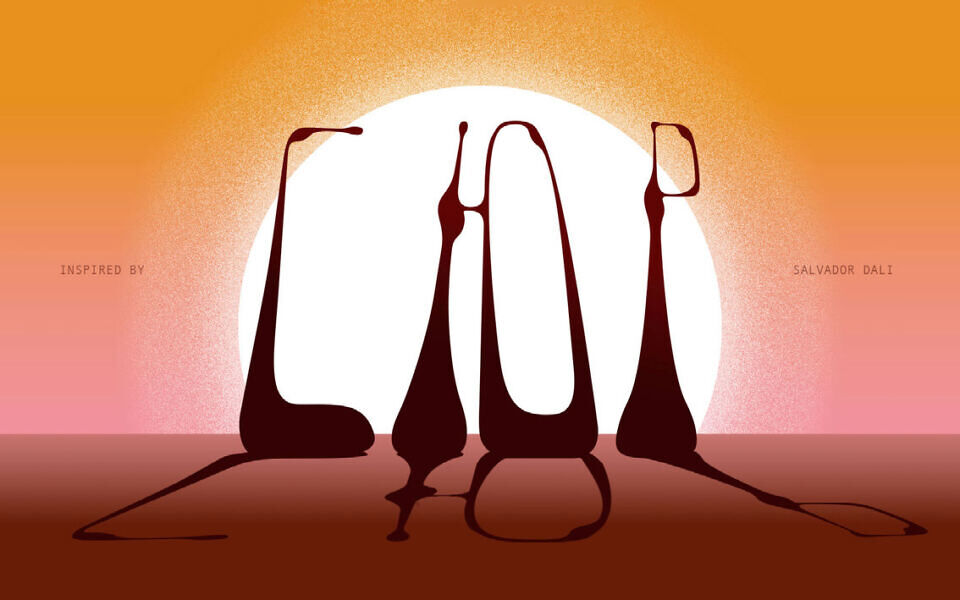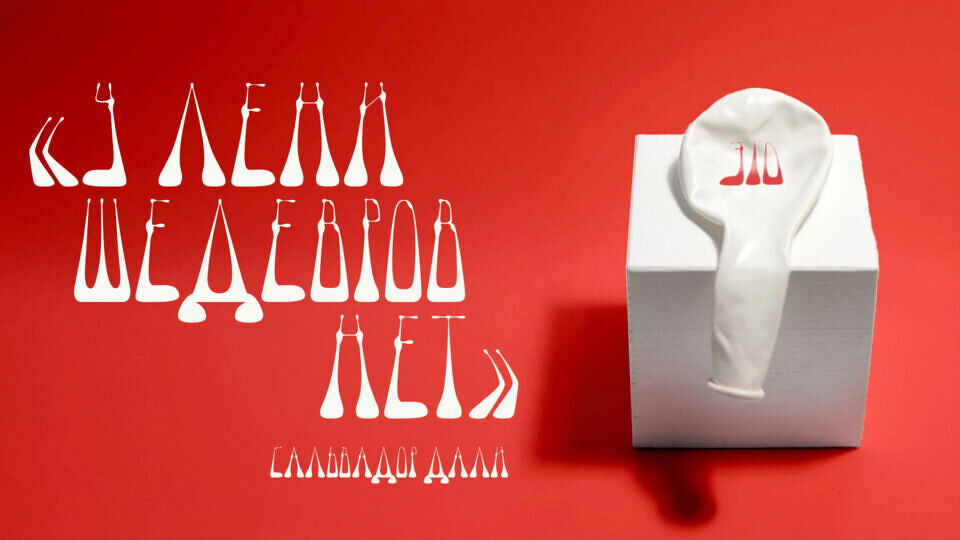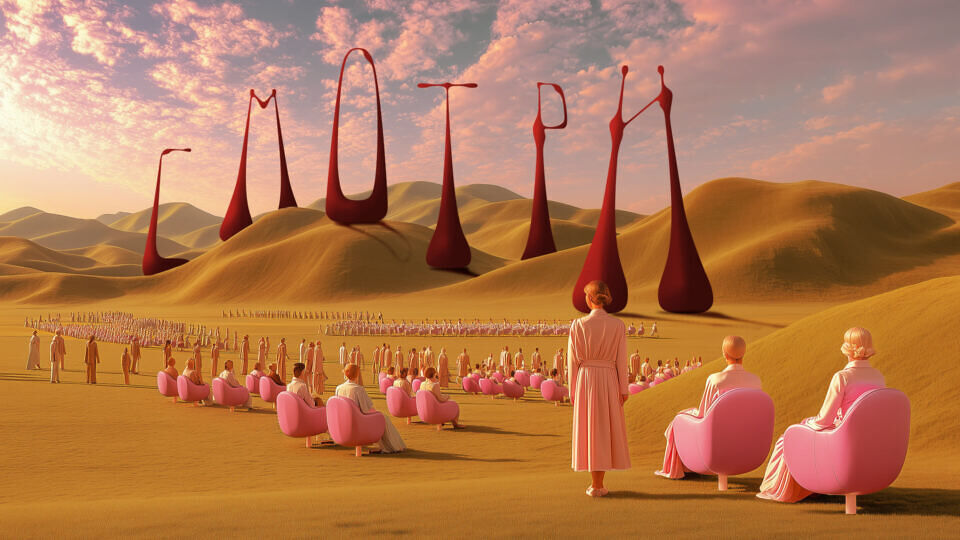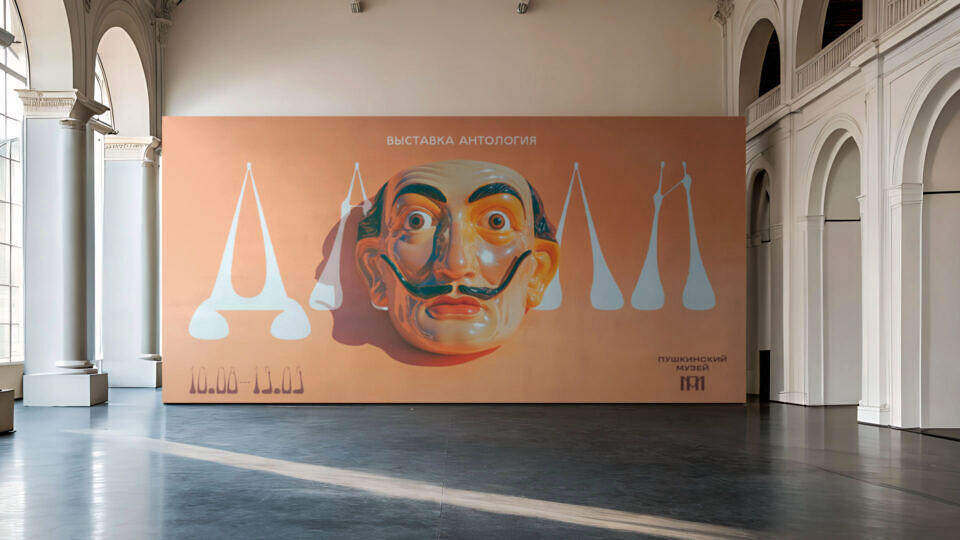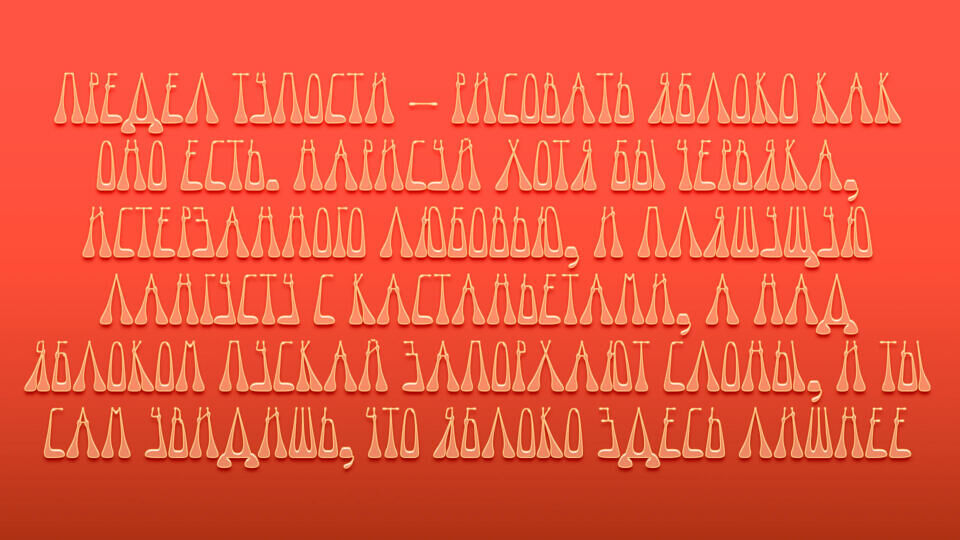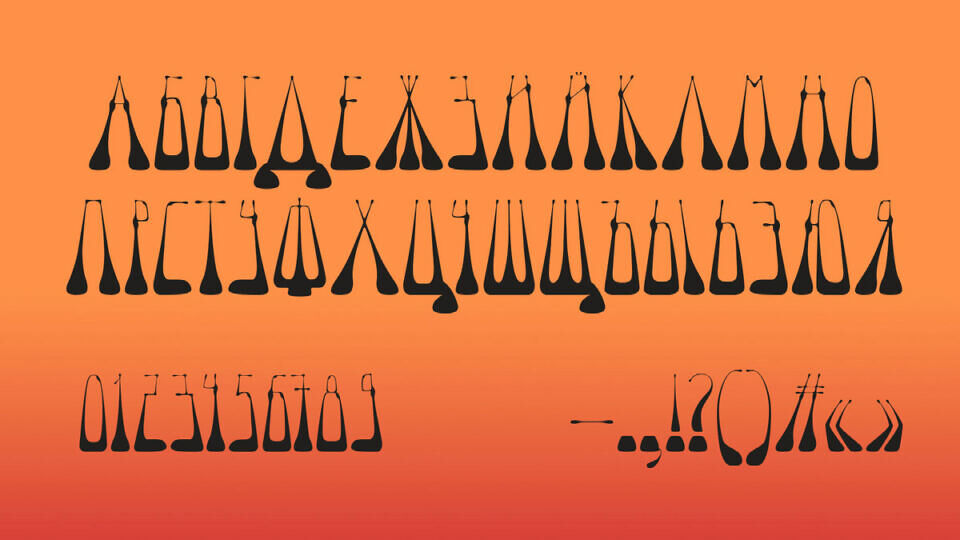
SUR is a display Cyrillic typeface inspired by Salvador Dalí’s surreal elephants — those long-legged, bone-thin creatures walking through a bizarre, dreamlike world. The font looks great in headlines but can also be used for body text. Experiment and bring your wildest fantasies to life.